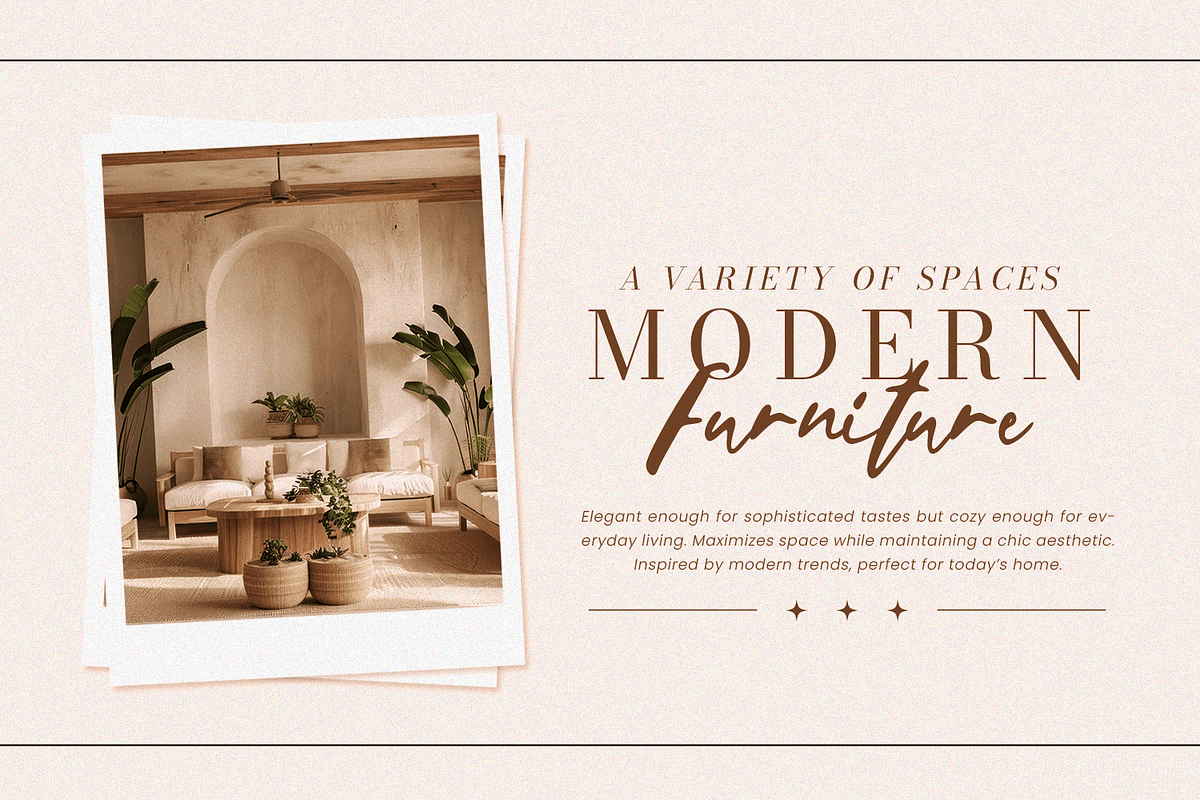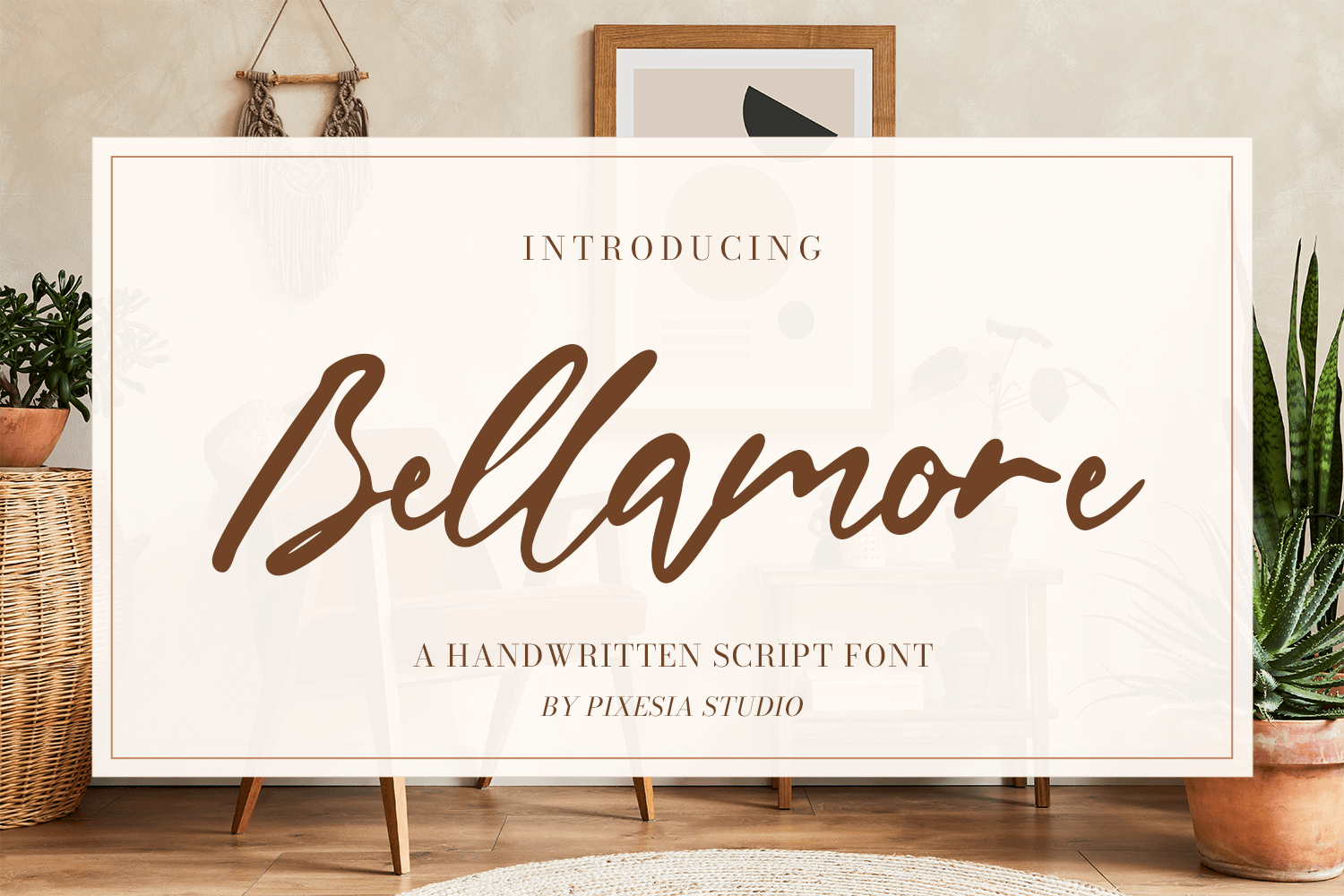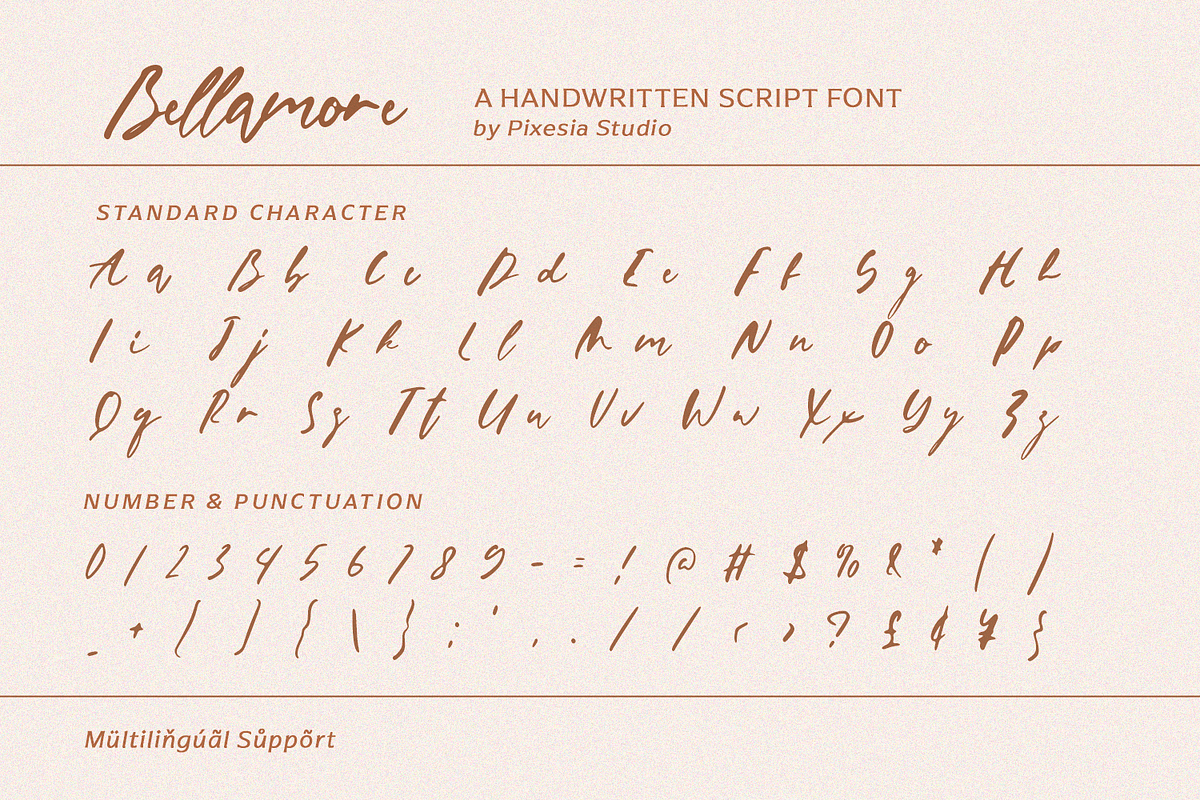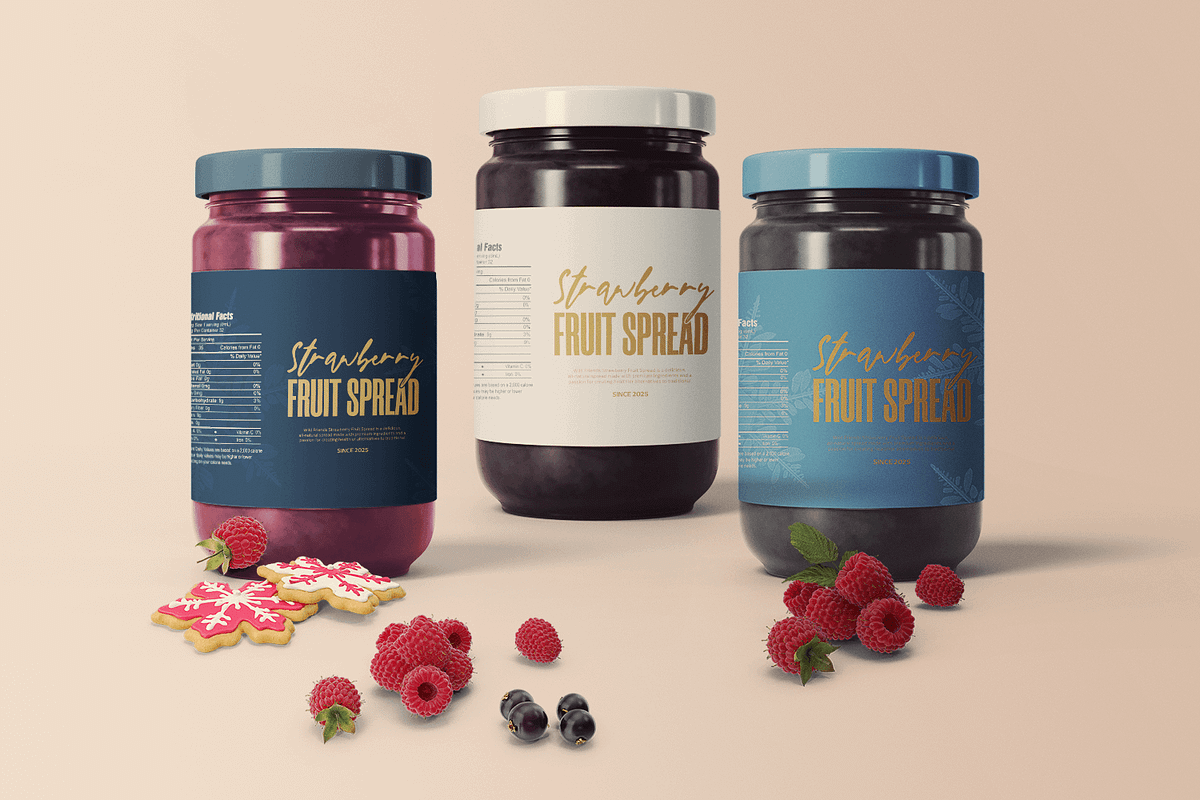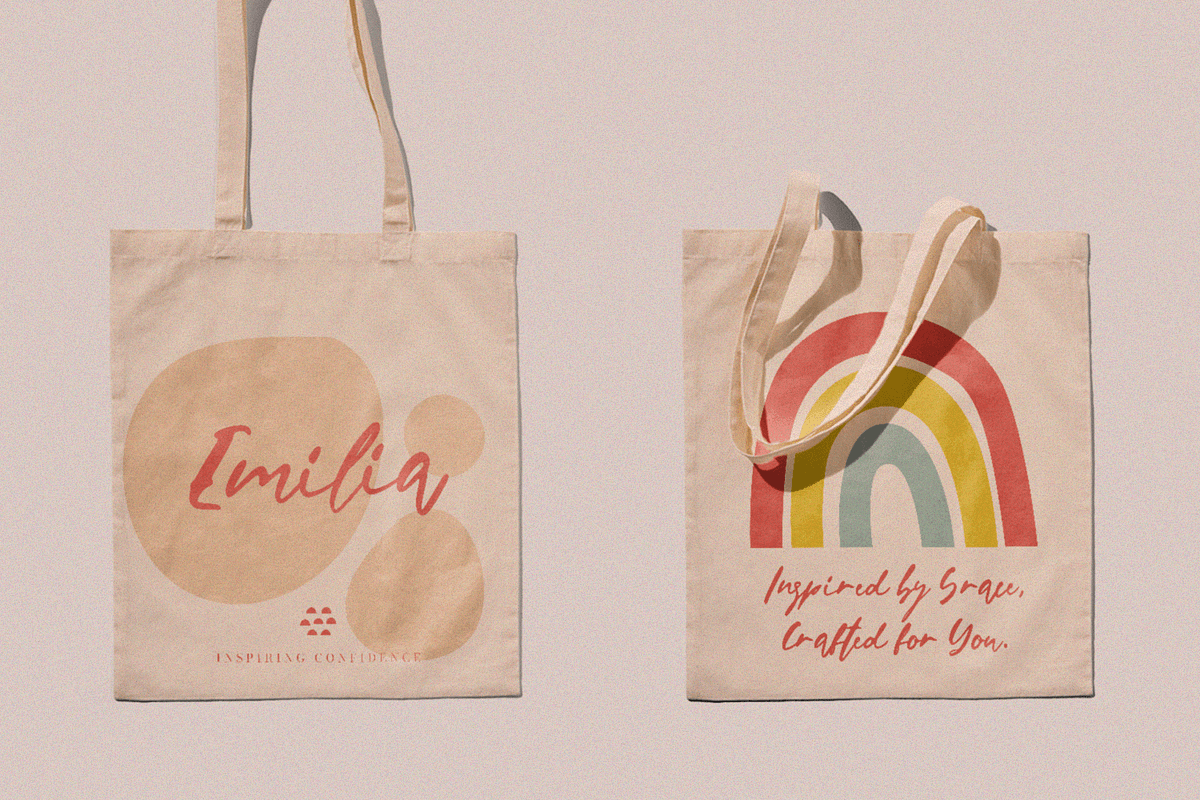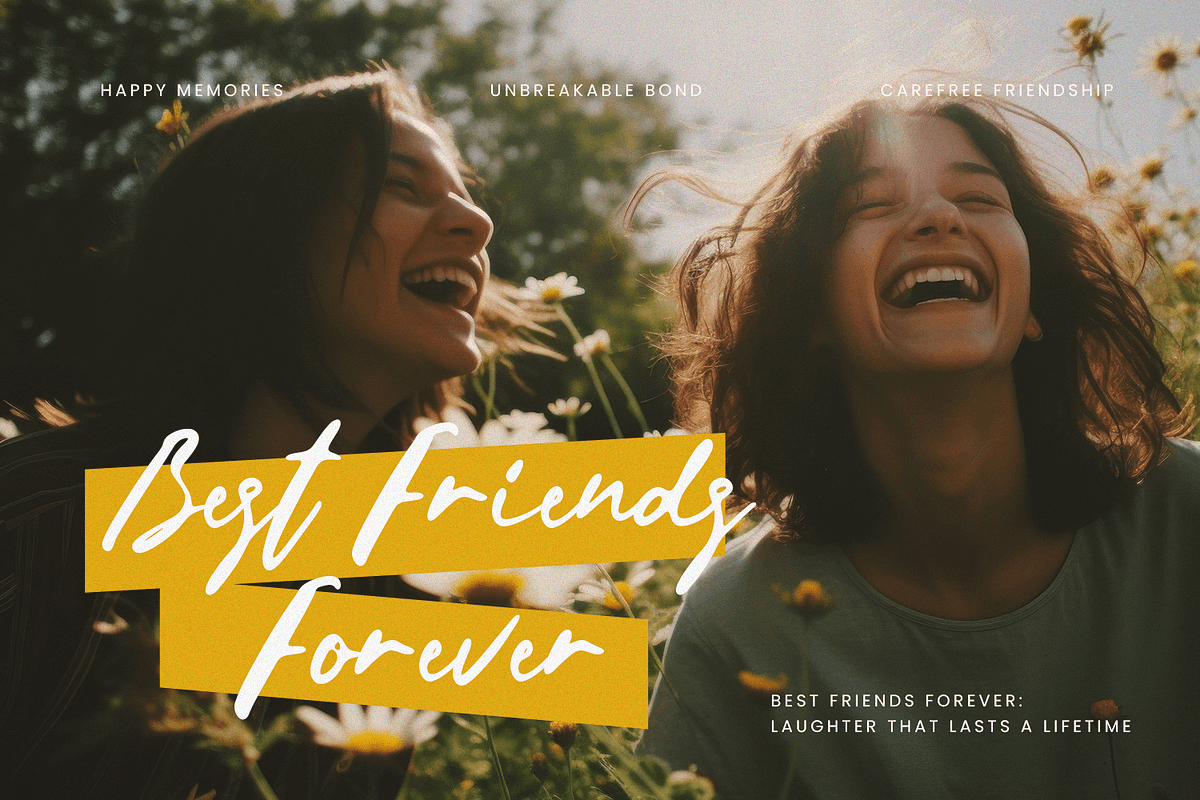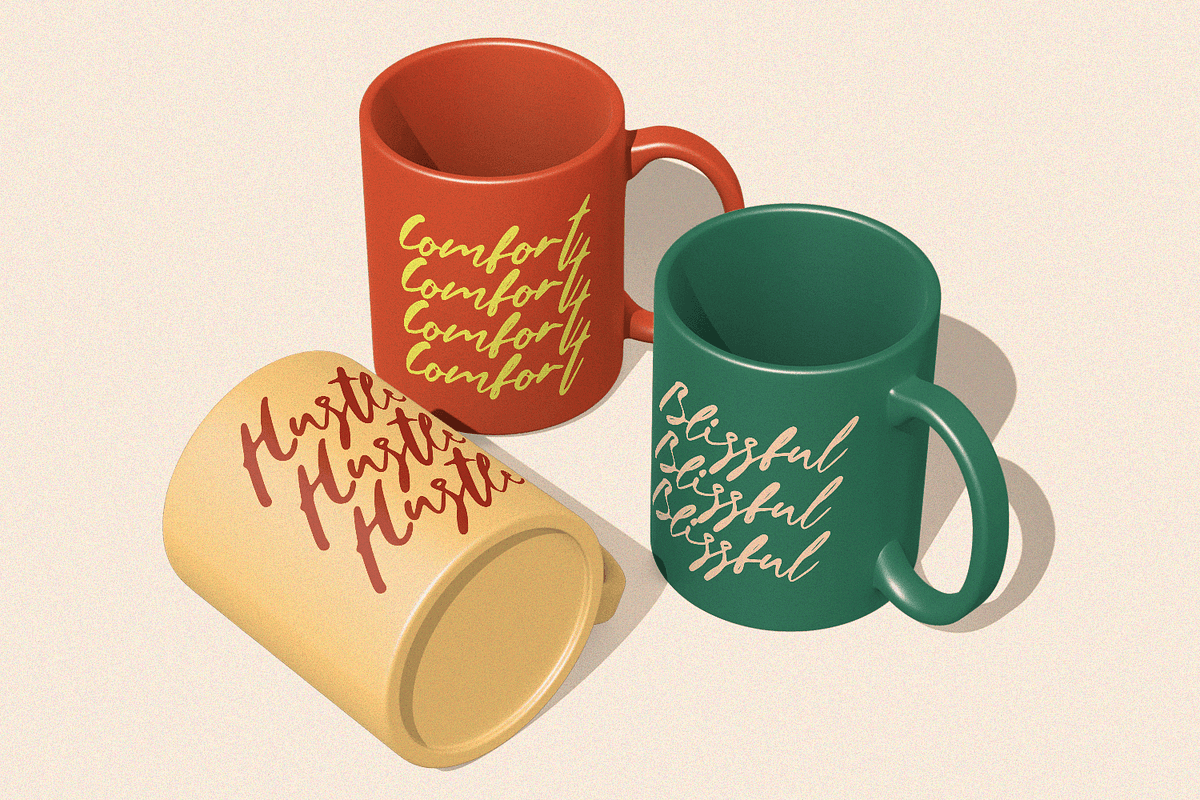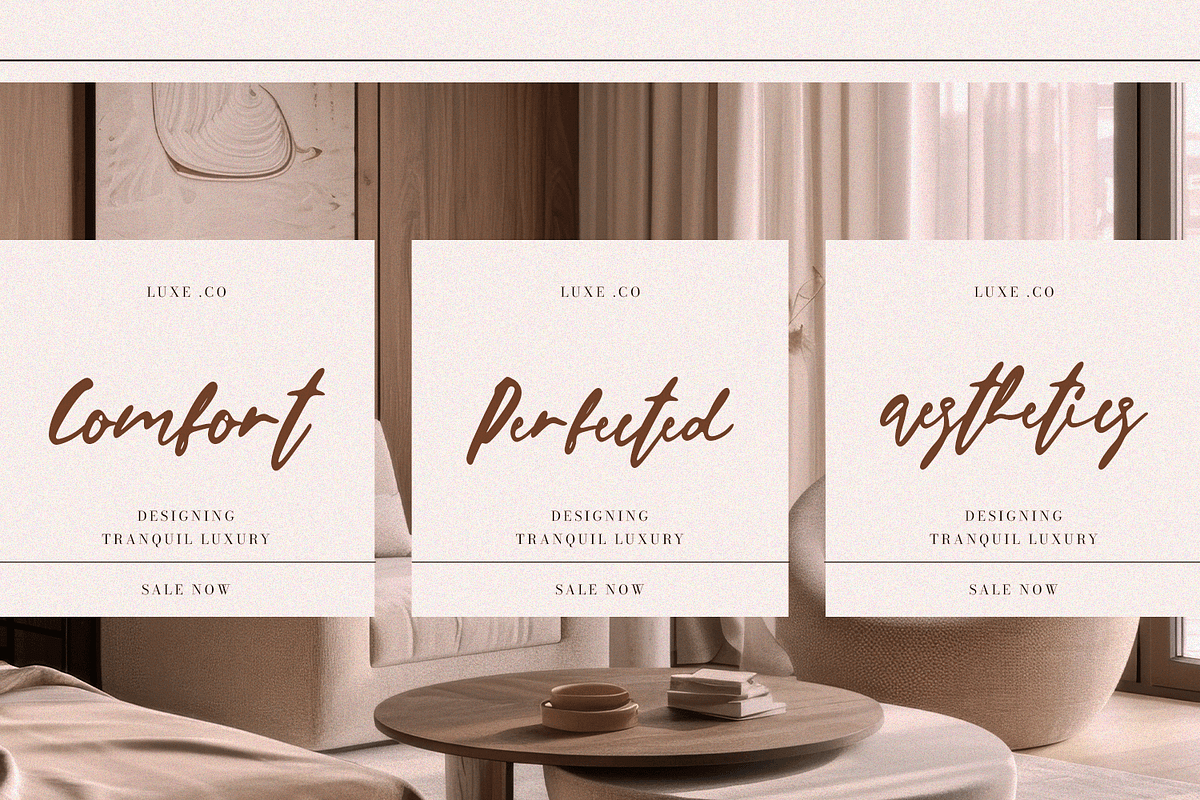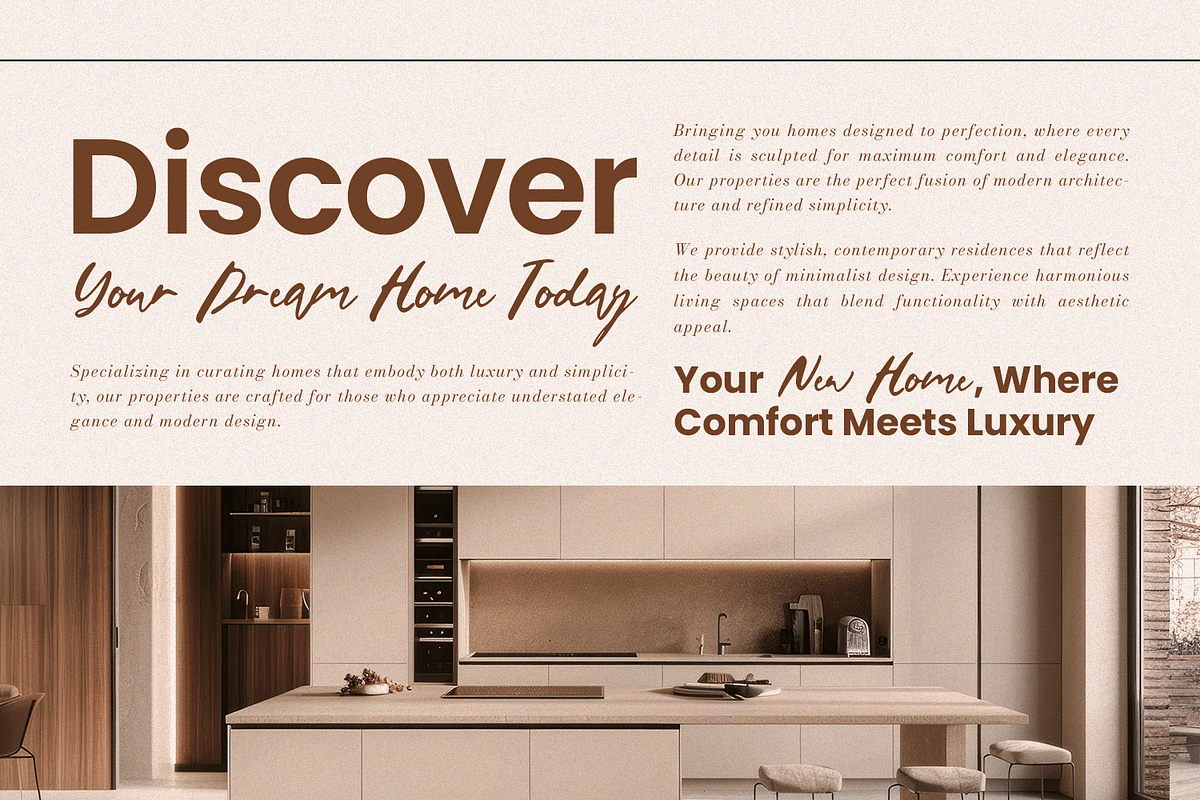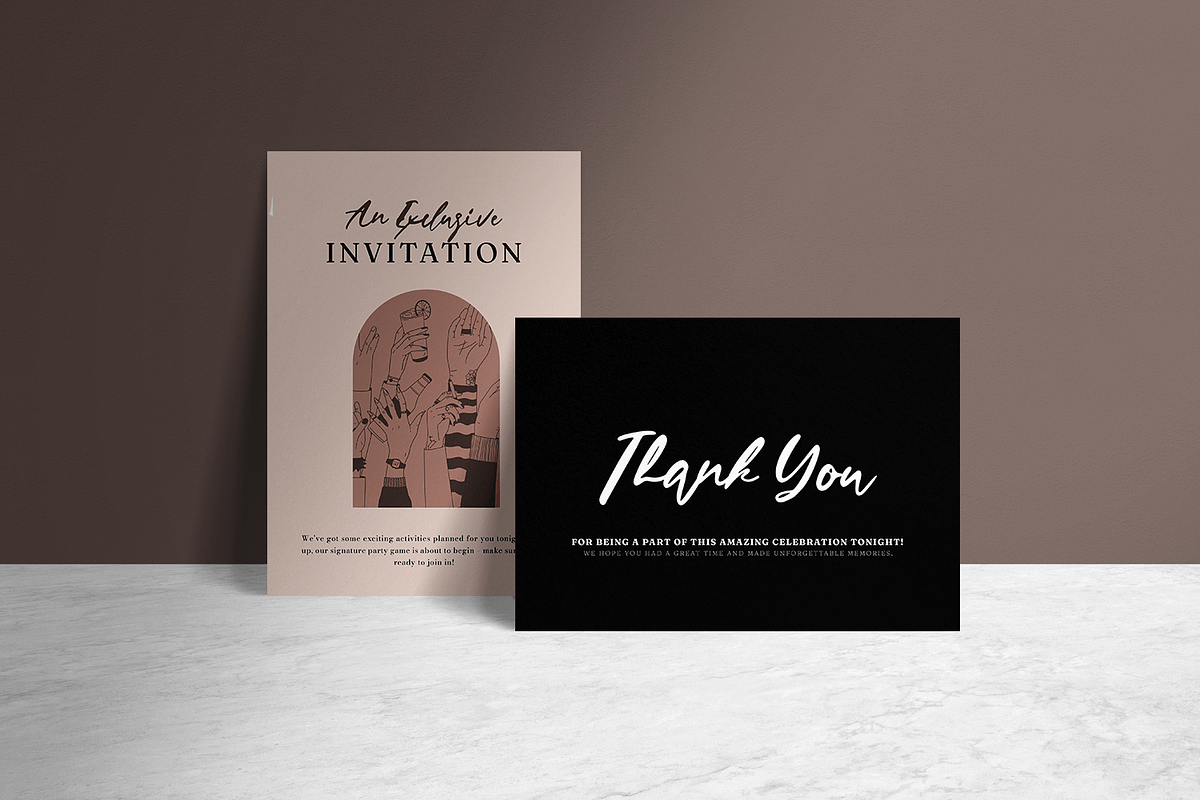
Bellamore – Handwritten Script Font
Introducing Bellamore – Handwritten Script Font
Bellamore is a chic and natural handwritten script font that radiates warmth and elegance. Its flowing strokes and smooth curves capture the essence of authentic handwriting, making it both personal and stylish. Perfectly balanced between casual charm and refined sophistication, Bellamore brings a fresh and modern touch to any design.
Bellamore is ideal for wedding invitations, logos, branding, greeting cards, quotes, product packaging, social media posts, photography, stationery, and any project that seeks a handwritten aesthetic with timeless beauty.
- Multilingual Support including Afrikaans, Albanian, Basque, Catalan, Danish, Dutch, English, Estonian, Faroese, Filipino, Finnish, French, Galician, German, Icelandic, Indonesian, Irish, Italian, Malay, Norwegian Bokmål, Portuguese, Spanish, Swahili, Swedish, Zulu